A Field Guide for Identifying Lovely Typefaces Spotted in the Wild
Fonts in Use, a new blog by designers Sam Berlow, Stephen Coles, and Nick Sherman, catalogs typefaces used in superb designs from all over.
Online, everyone's a design critic. We don't have to like it. But we can't avoid it. Which makes Fonts in Use, a new site by designers Sam Berlow, Stephen Coles, and Nick Sherman, a refreshing addition to the blogosphere: It catalogs and analyzes typography found in designs all over the world. And it does so -- gasp! -- intelligently.
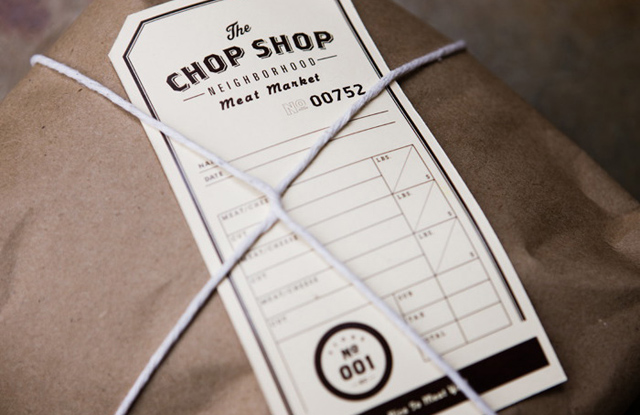
[A type treatment for a modern butcher shop]
The whole thing is presented as a field guide to modern-day font usage. So arranged in tiles on the homepage, you've got a nice little sampling of typographic stories, from the saga of Futura and Benton Modern in W to the the tale of ITC Franklin in a Ford ad. Think of it as The Hollywood Reporter for type dorks.
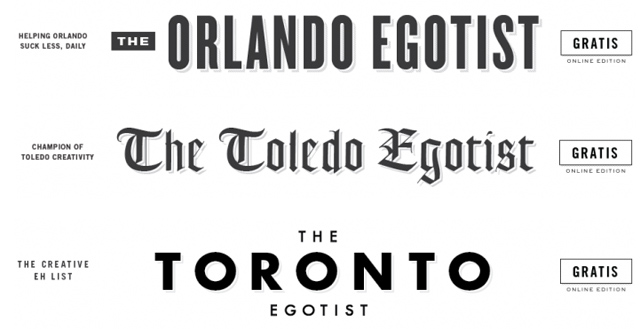
[The lovely type treatments for The Egotist Network]
The founders are veteran designers -- two of 'em come from the exalted type foundry The Font Bureau -- and it's patently clear they aren't afraid to get dishy. Here's Coles on a Didoni branding scheme: "The only typographic negligence is found in some of the smaller headlines where less care was taken to fix URW Didoni's inadequate kerning." That naughty font!
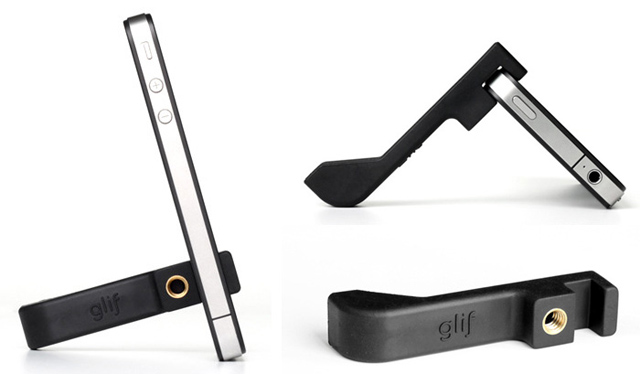
[The Glif, an iPhone attachment were the type is echoed in the actual design]
Such wonkiness will certainly warm the site to seasoned designers and type fanboys alike. (They've got to be the target audience here, anyway.) As for the kibitzers: Visit at your own risk. You might actually learn something.